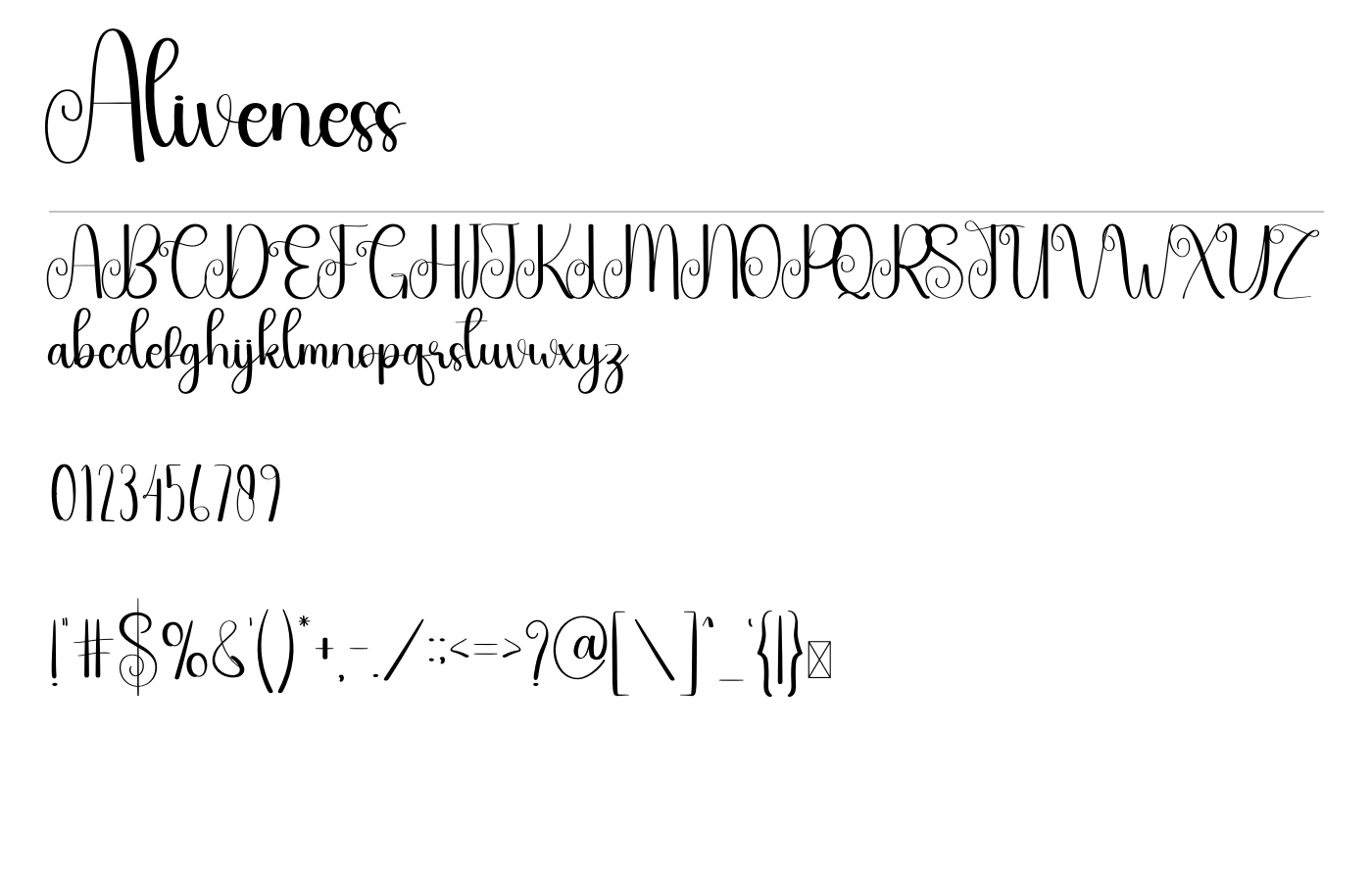
Aliveness is a whimsical script font with a lively and delicate feel, featuring thin strokes and elegant swirls that add a playful touch to both uppercase and lowercase letters. Its narrow, tall letterforms combined with decorative curls make it ideal for use in creative branding, invitations, and headlines where a charming, artistic vibe is desired. This font works especially well for projects that want to communicate warmth and creativity with a stylish, feminine flair.
Aliveness Font